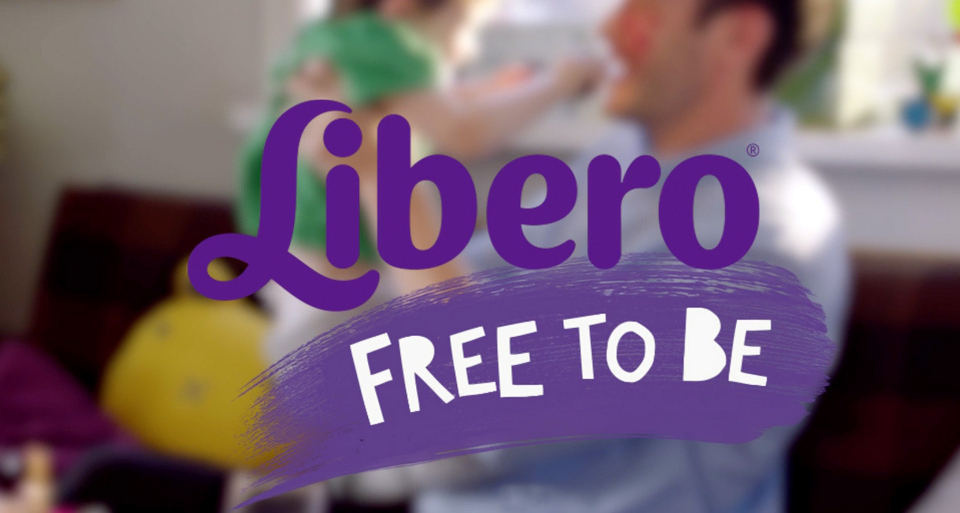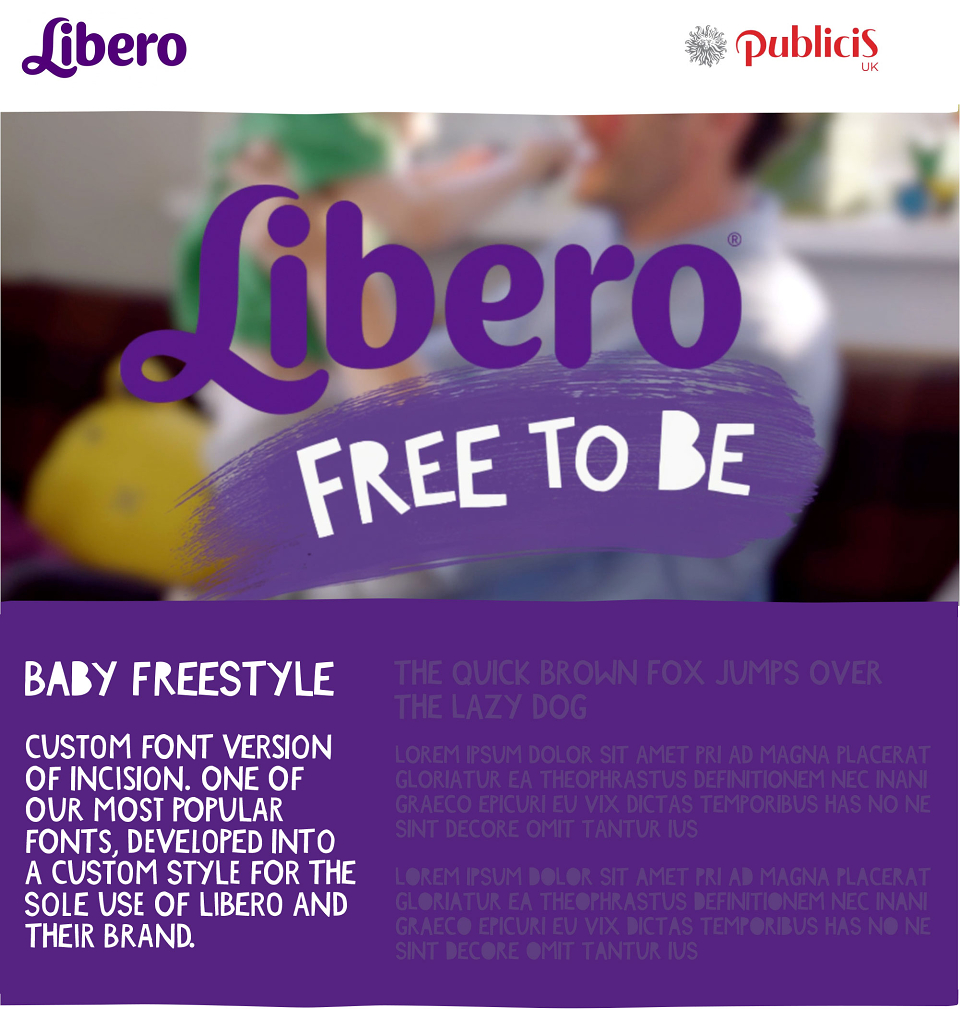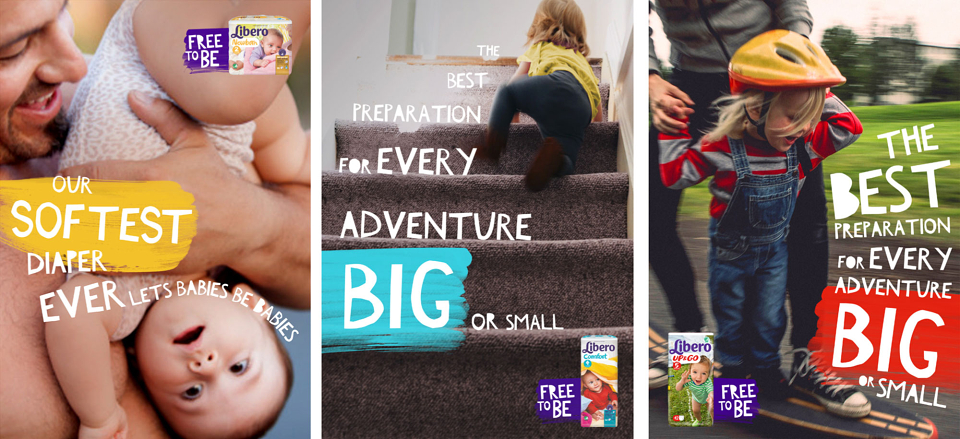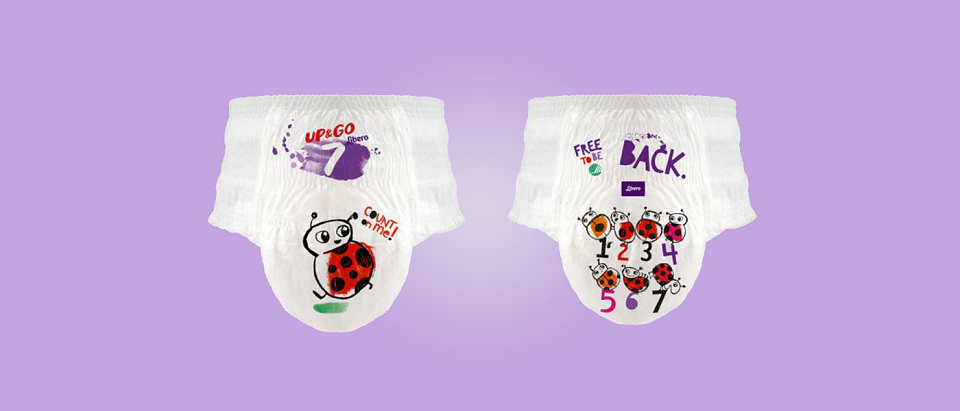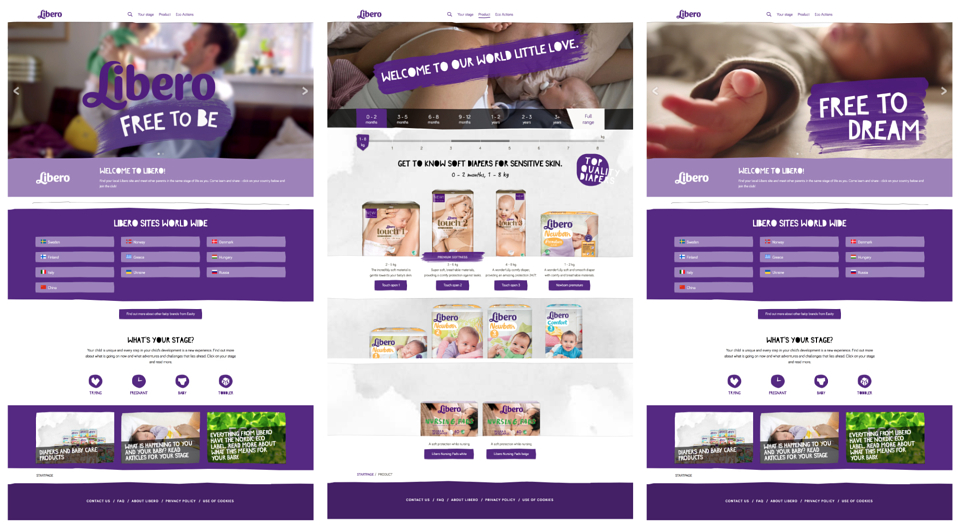
Custom Brand Font Design for a client, used in the branding of diapers and nappiesPublicis London approached us to design a custom version of our most popular font Incision, solely for the use of their client as part of their client campaign Libero. The Incision font is a cutout font initially released in 2013 and has been used on many books, magazines and particularly popular for packaging. The mixture of cut letters in both upper and lowercase simple in structure has since been built into a full weight family and has seen use across Film, TV, Advertising, and Packaging.
Custom font built for Publicis London as part of their client campaign Libero We are very proud to be approached by Publicis London to design a custom version of our most popular font incision The Incision Typeface is a cutout font initially released in 2013 and has been used on many books, magazines and particularly popular for packaging The mixture of cut letters in both upper and lowercase simple in structure has since been built into a full weight family Publicis London approached us to design a custom version solely for the use of their client Libero.
The project required:
A custom letter set version to be created for the sole use of Libero
Refined letterforms, glyphs, and font creation.
Uppercase refined letters, in differing styles, cutout variations, and Opentype features.
Over 259 characters with multilingual support Greek, Hebrew and other language sets.
Continued support and growth to support more extensive font sets and language requirements
Built in 6 weeks to meet the deadline of the brand
The custom typeface has been used for packaging, billboards, website promotion, on screen graphics and has been released worldwide